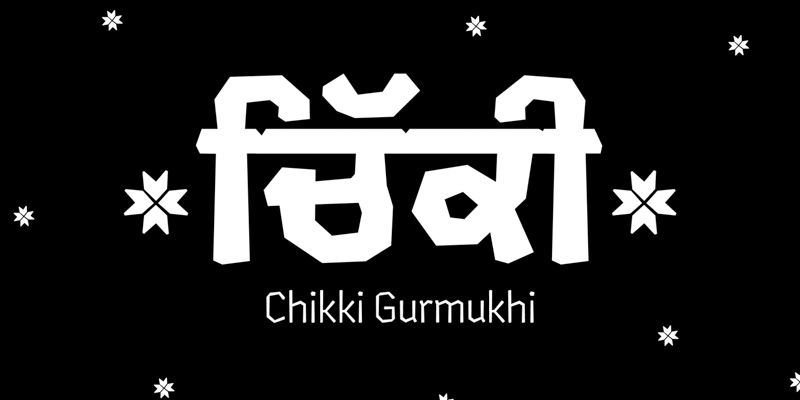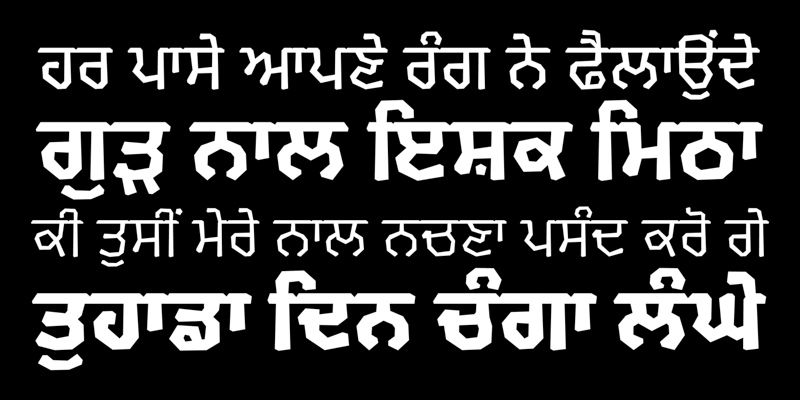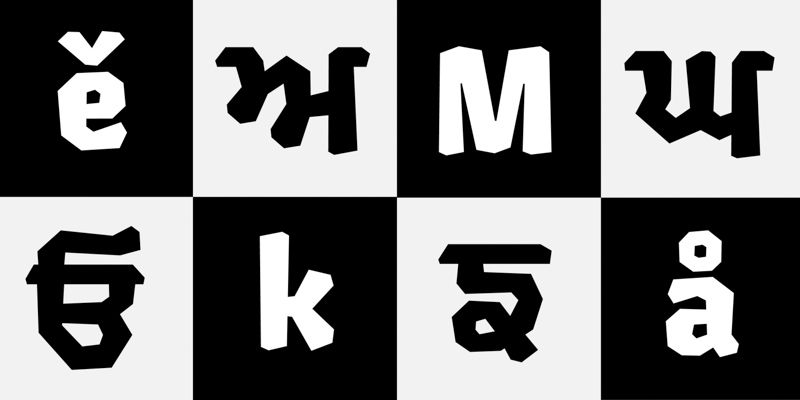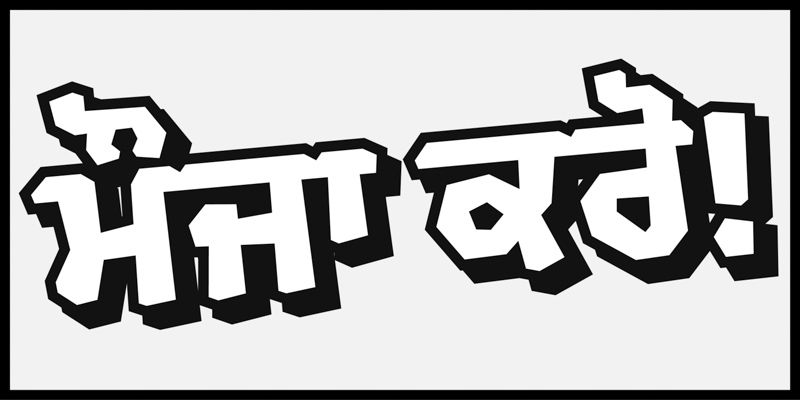
Sweet and distinctive, Chikki is a crunchy Gurmukhi and extended Latin type family that brings a fresh geometric approach to both scripts. Its most striking feature is the replacement of traditional curves with straight lines and softened corners, creating a uniquely angular yet approachable texture. Developed with input from native Punjabi readers and designers, this family has a signature crunchy texture while respecting the cultural and typographic nuances of Gurmukhi.
Like its Devanagari counterpart, Chikki Gurmukhi features six weights from Light to Black, offering excellent typographic control and hierarchy. The letterforms adapt the original Chikki flavor to Gurmukhi’s unique character set, resulting in a cohesive cross-script design that works harmoniously in multilingual contexts while maintaining its playful personality.